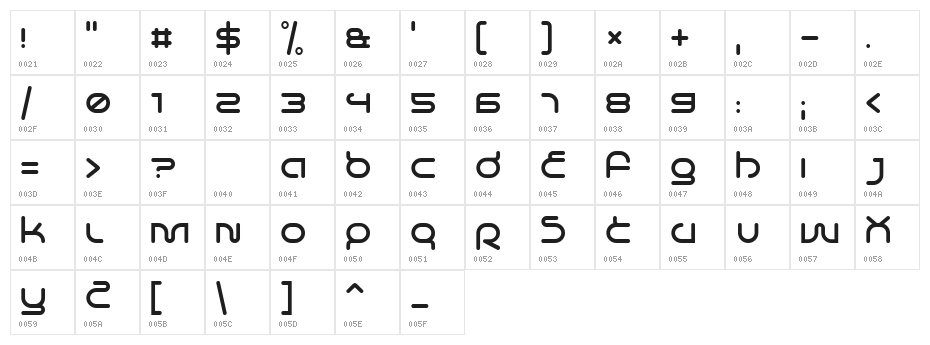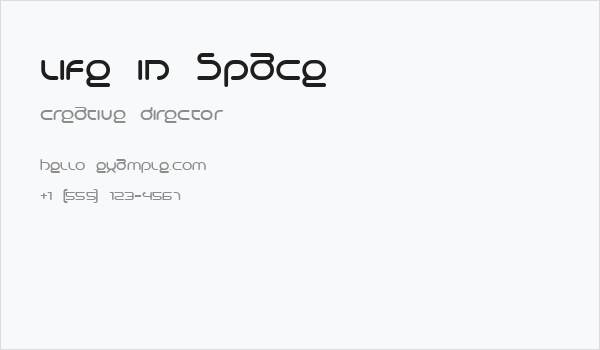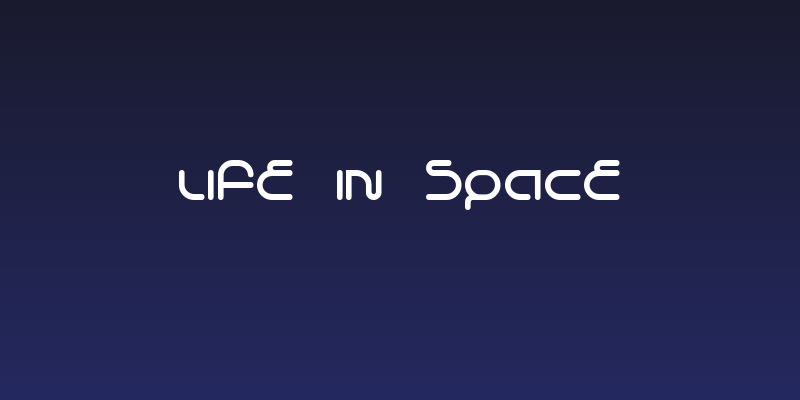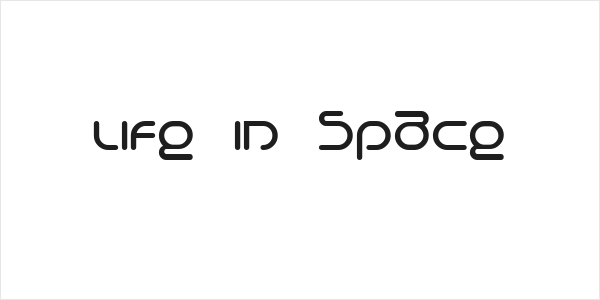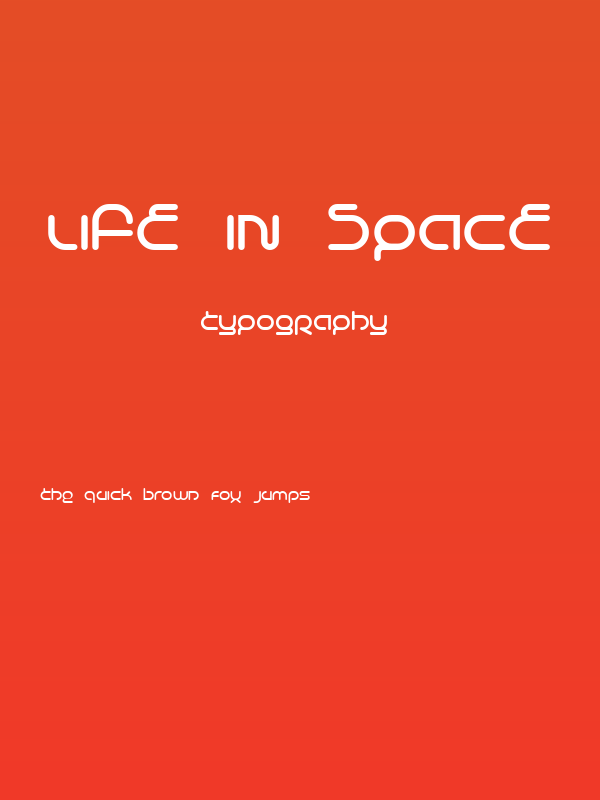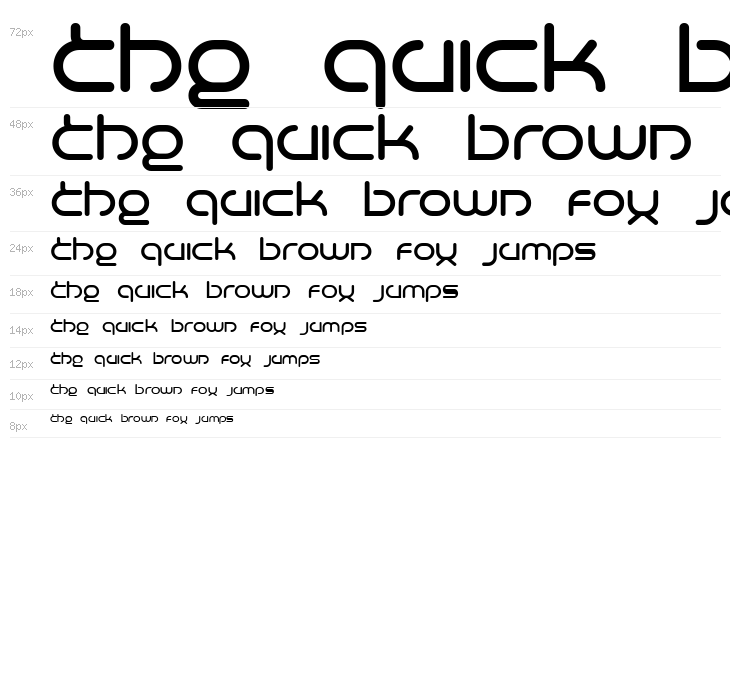
Life in Space Font
Life in Space Description
This font features a futuristic and sleek design, characterized by its rounded edges and smooth curves. The letters are evenly spaced, creating a harmonious and balanced appearance. The font's modern aesthetic is enhanced by its uniform line thickness, giving it a clean and polished look. It includes both uppercase and lowercase letters, numbers, and a variety of special characters, making it versatile for different design needs. The overall style is minimalistic yet distinctive, suitable for projects that require a contemporary and innovative touch.
| Proposed Projects | Ideal for technology branding, sci-fi movie posters, modern website headers, and innovative product packaging. |